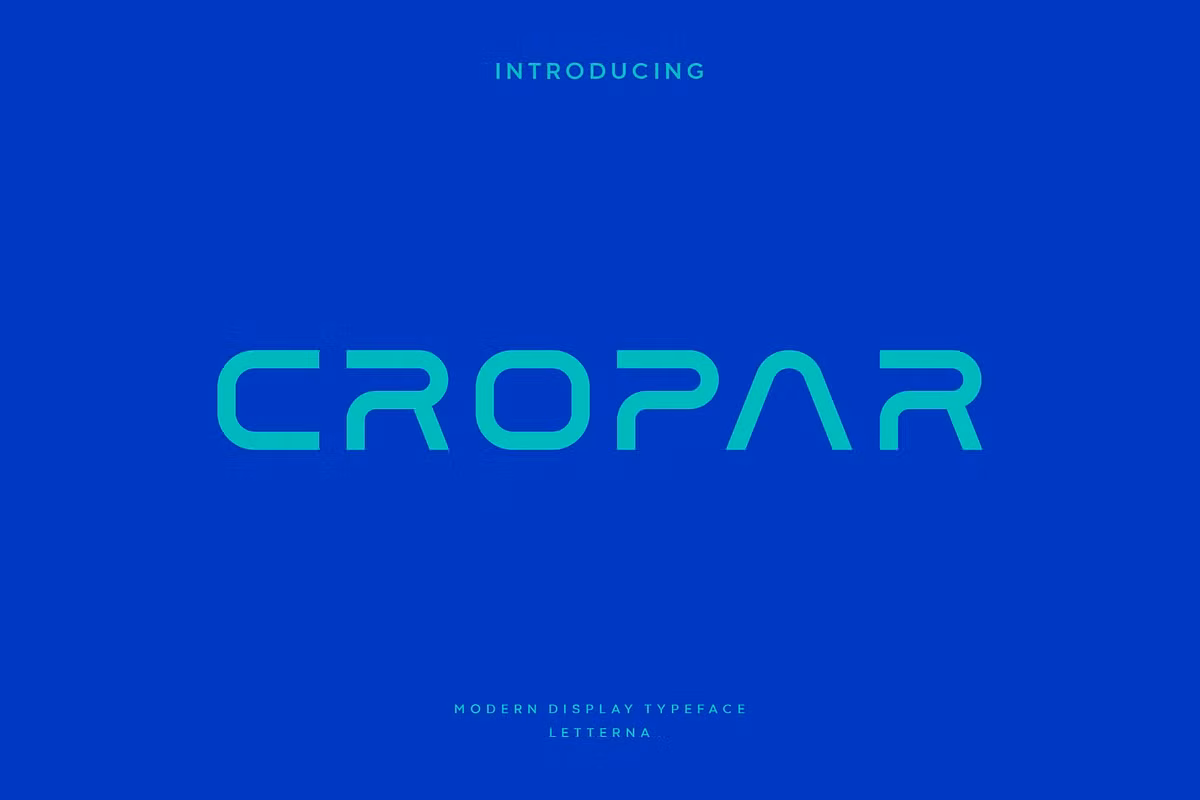
Cropar - Modern Futuristic Typeface Free Download
Cropar - Modern Futuristic Typeface Free Download is a sleek and cutting-edge typeface designed for high-tech, digital, and sci-fi-inspired projects. With its sharp angles, clean geometry, and minimalistic aesthetic, this font is perfect for technology branding, UI/UX design, gaming interfaces, and futuristic poster art.
Engineered for clarity and impact, Cropar - Modern Futuristic Typeface Free Download delivers a bold visual presence while maintaining excellent readability. It’s a favorite among designers aiming for a modern and innovative look, ideal for both digital platforms and print media.